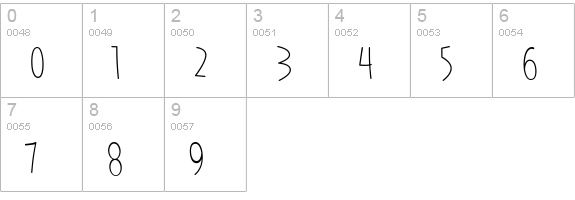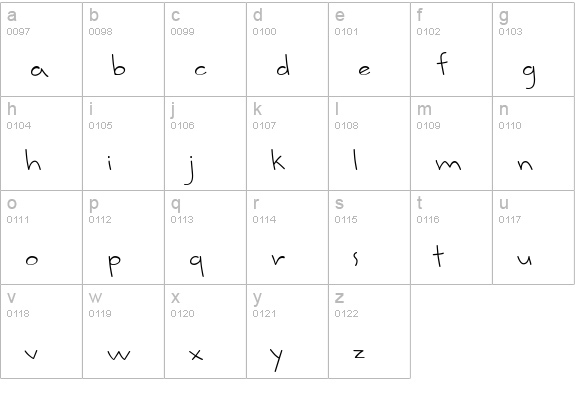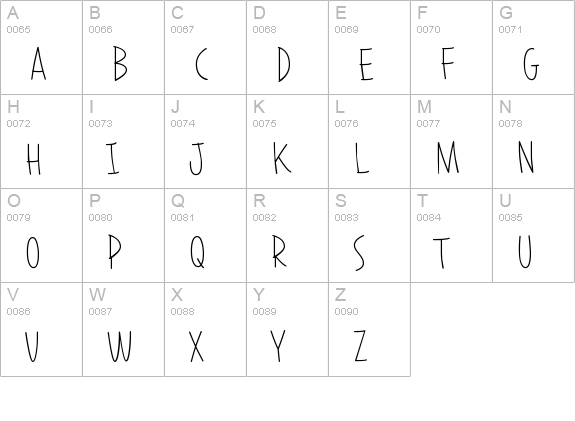
Smarty Pants BTN Light is a refined, elegant variant in the Smarty typeface family \xE2\x80\x94 well suited to elegant body text, refined sub-headings, and luxury branding.
Introducing Smarty Pants BTN Light, a sleek and modern font that is bound to elevate your designs to the next level. This font exudes sophistication, making it perfect for a wide range of projects, from branding and advertising to website design and social media graphics. With its clean lines and elegant curves, Smarty Pants BTN Light captures attention effortlessly, while maintaining readability and legibility. Its versatility allows it to seamlessly blend into any design concept, whether you're aiming for a professional and corporate look or a trendy and creative vibe. But what sets Smarty Pants BTN Light apart from the rest is that it is not just an ordinary font – it is freely available to download at FontsMarket.com. That's right, this font can be yours without any cost or limitations. Now, you can enhance your designs with a premium-quality font without breaking the bank. Whether you're a professional graphic designer, a passionate hobbyist, or simply someone who appreciates quality design, Smarty Pants BTN Light is a must-have addition to your font collection. Its versatility, elegance, and the fact that it is freely available make it a truly irresistible choice. So why wait? Don't miss out on the opportunity to elevate your designs and make a lasting impression. Head over to FontsMarket.com and download Smarty Pants BTN Light today, and let your creativity shine with this remarkable font.